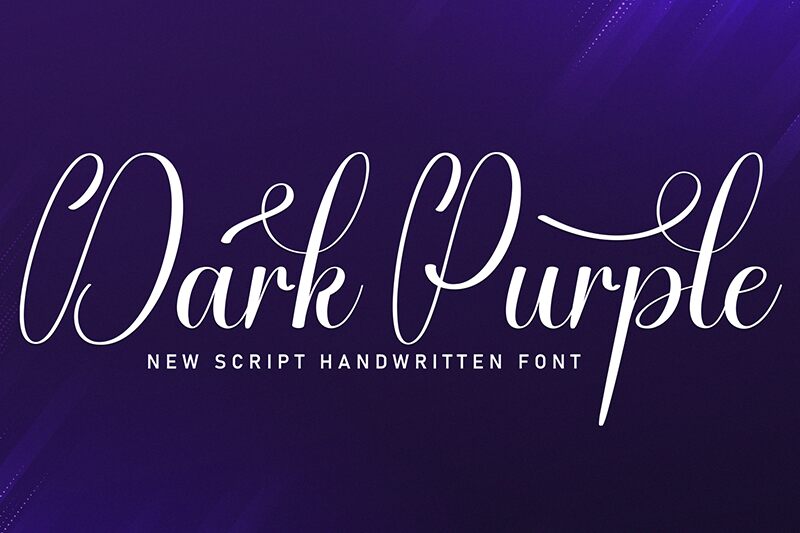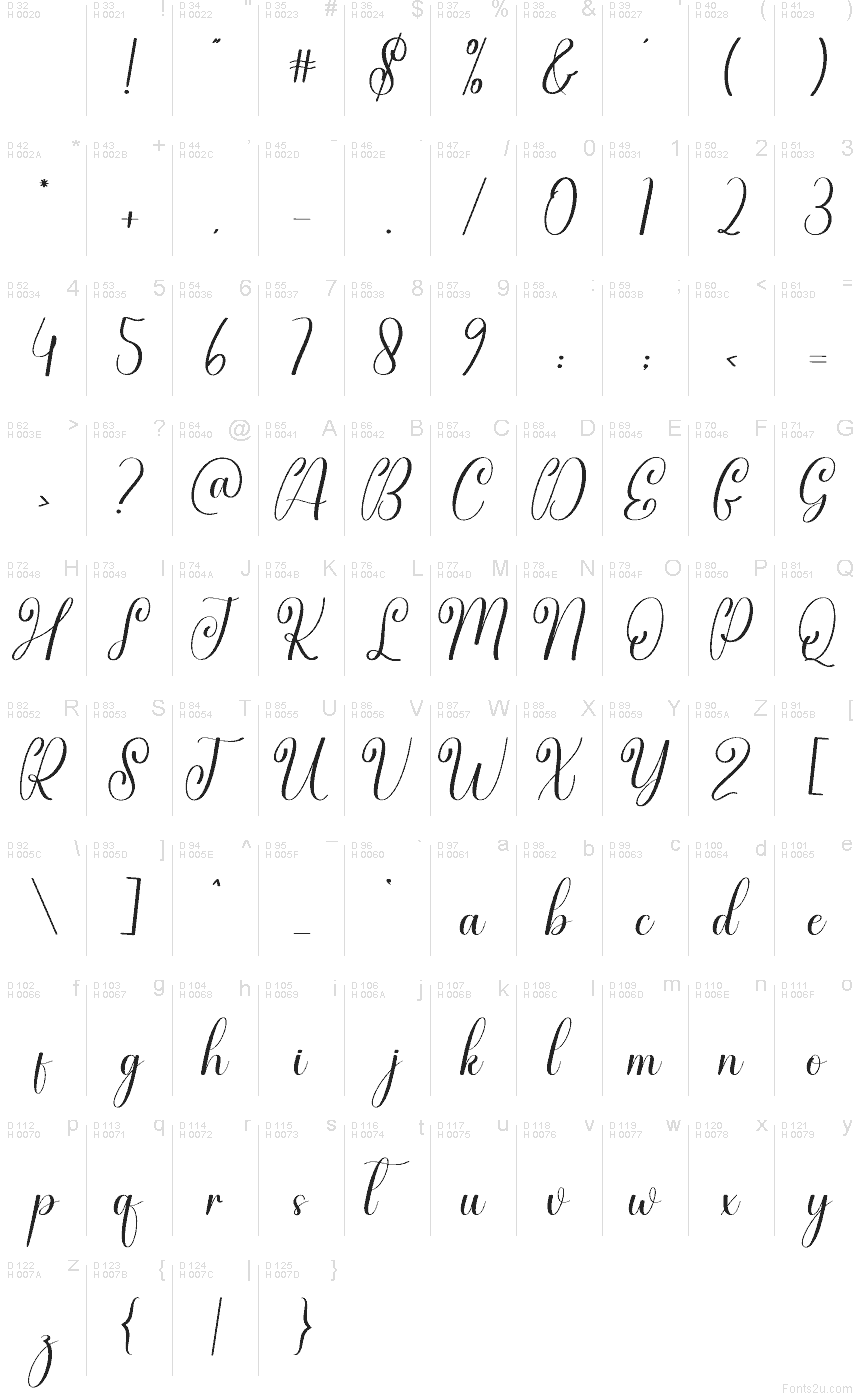
Dark Purple
Dark Purple font by Andi Moz is a free calligraphy typeface with long, flowing strokes that feel like they were written with a glossy ink pen in one confident motion. Its tall, slender letters and smooth, looping connections give text a romantic, slightly dramatic flair that still reads cleanly at a glance, especially in larger sizes.
Using Dark Purple, you can give wedding invitations, save-the-dates, event signage, boutique logos, packaging, social media quotes, and greeting cards a polished, handwritten charm. This free font shines when used for names, headlines, and short phrases; pair it with a simple sans serif for body text to keep your layouts airy and elegant.